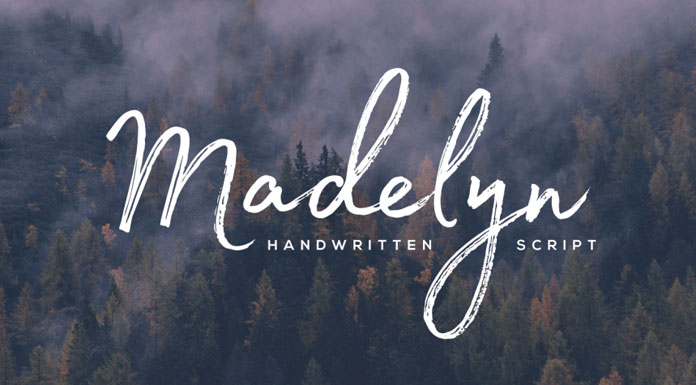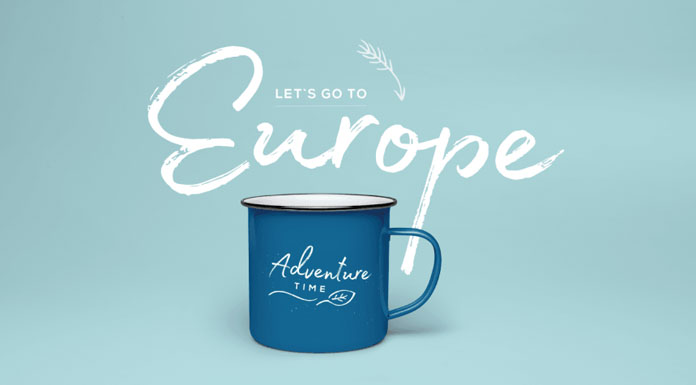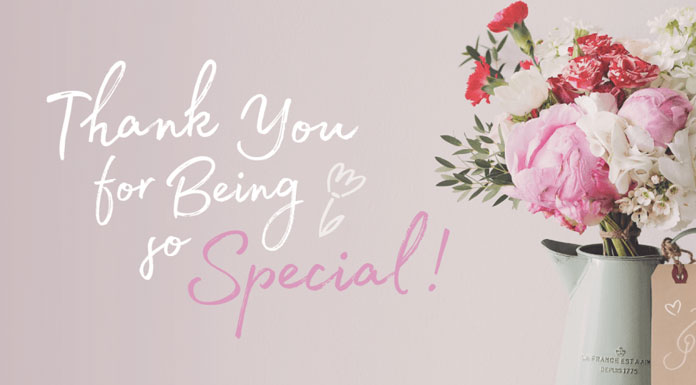
The Madelyn typeface, a handwritten brush script font plus doodles from Fontfabric.
Foundry Fontfabric has recently published a new script typeface named Madelyn. Made with casual strokes, this brush script is based on a real handwriting. The basic character set comprises full upper and lowercase letters with an extra low x-height as well as high ascenders and descenders. The typeface also includes a varied range of numerals, punctuation, and doodles. Equipped with over 100 ligatures, with Madelyn you can create natural looking handwritings. For additional information, feel free to read more below or click on the following link.
The extensive set of contextual alternates will help you to give your typographic work a more natural style. Also included is a set of handmade ornaments, icons, and swashes. The extensive character set includes both Latin and Cyrillic letters. You can use this beautiful brush script font for a variety of applications such as invitations, greeting cards, brand and logo design, packaging, titles, posters, just to name a few. The typeface is currently on sale on Fontspring. For additional information, please follow the link below.